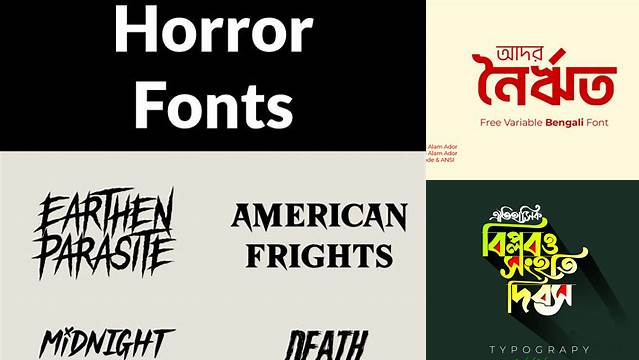
Free Horror Bangla Fonts: Download & Design Spooky Creations
Welcome, horror enthusiasts and font fanatics! If you're on the hunt for some truly spine-chilling typography to elevate your projects, you've landed in the right place. We're diving deep into the world of horror Bangla fonts, exploring where to find them, how to use them, and how they can transform your designs from bland to bloodcurdling. So, grab your virtual torches and let's get started. This comprehensive guide is all about horror Bangla font free download options and how to use them effectively.
What Makes a Bangla Font "Horror"?
Before we start our horror Bangla font free download quest, let's define what exactly makes a Bangla font scream "horror." Unlike your everyday, friendly fonts, horror fonts are designed to evoke feelings of fear, unease, and suspense. They achieve this through a variety of stylistic choices:
- Distorted Letterforms: Many horror fonts play with the shapes of the letters, bending, breaking, and warping them to create a sense of instability and chaos. Imagine letters that look like they're melting, dripping, or crumbling – perfect for that unsettling effect.
- Rough Textures: Rough edges, scratches, and uneven surfaces are common in horror fonts. These textures can make the text appear aged, damaged, or even bloodstained, adding to the overall sense of dread. This is often done to enhance the horror Bangla font free download experience.
- Gothic Influence: Gothic fonts, with their sharp serifs and imposing presence, are a classic choice for horror. They can convey a sense of old-world mystery, dark secrets, and the supernatural. Incorporating Gothic elements can be a great way to make your horror Bangla font free download selection stand out.
- Unique and Creative Designs: Some horror fonts take a more unconventional approach, incorporating elements like claw marks, spiderwebs, or even skeletal structures into the letterforms. These creative designs can be incredibly effective at grabbing attention and setting the mood for your horror projects. You'll be surprised at the variety available with a horror Bangla font free download.
When choosing a horror Bangla font, consider the specific mood or theme you want to create. A font with dripping blood might be perfect for a zombie-themed project, while a more gothic font could suit a haunted house narrative. Thinking about the context will help you narrow down your options and find the ideal font for your needs. Also remember, the best horror Bangla font free download is one that complements your overall design vision. Consider how the font will interact with other elements in your design, such as images, colors, and layout. The goal is to create a cohesive and immersive experience that draws your audience into your horror story. With a little bit of creativity, you can create some truly terrifying designs. Keep in mind that a successful design is more than just the font; it's the overall composition. Good luck with your search for the perfect horror Bangla font free download and have fun scaring your audience.
- Bangla Font Specific Sites: Some websites specialize in Bangla fonts. These sites may not have a specific "horror" category, but you can still explore their collections, looking for fonts with unique or unusual designs that could fit your horror theme. These sites may be great sources to find the perfect horror Bangla font free download that fits your needs.
- Graphic Design Forums and Communities: Keep an eye on graphic design forums and communities. Designers sometimes share their custom-made fonts or recommend interesting finds. Following these communities can be a great way to discover unique and under-the-radar horror Bangla fonts that are available for horror Bangla font free download.
When downloading fonts from any website, always exercise caution. Make sure the site is reputable and that you are downloading the font file directly from the source. Avoid clicking on suspicious links or downloading files from untrusted sources to protect your computer from malware. Be mindful of the terms of use of any horror Bangla font free download and respect the licenses provided by the font creators. Check the licensing details before using any font commercially. By following these simple precautions, you can safely find and download your favorite horror Bangla fonts.